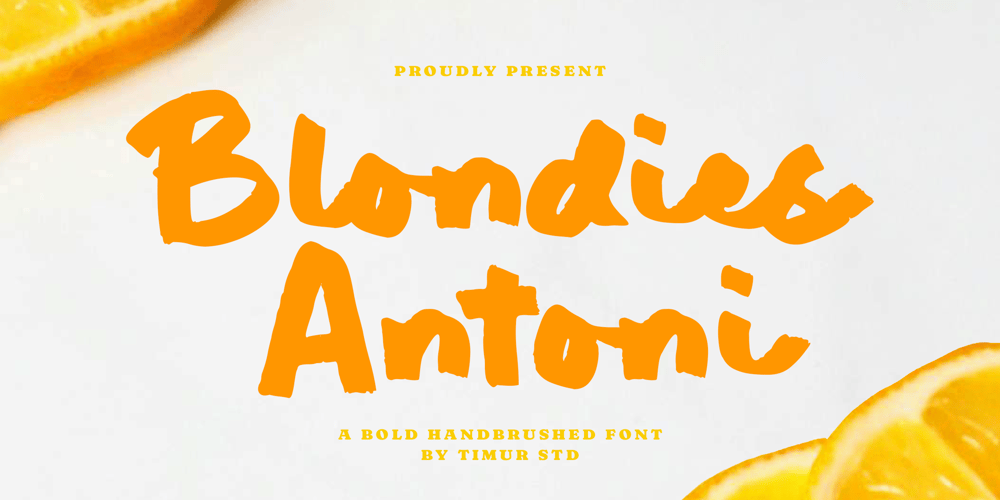
Blondies Antoni Font Family was designed by Wara Sigit Tri Pamungkas and published by Timurtype. Blondies Antoni contains 1 styles and family package options. Introduced by Timurtype Studio!Blondies Antoni is a Bold Handbrushed Font This font is a bold hand-brushed display font with a modern, artistic flair. Its textured strokes and dynamic shapes evoke energy and creativity, making it perfect for eye-catching designs like posters, logos, and branding materials.Blondies Antoni Font also supports multilingualismEnhance your designs with our original fonts, feel free to comment or provide feedback, Enjoy the fonts 😊Thank You